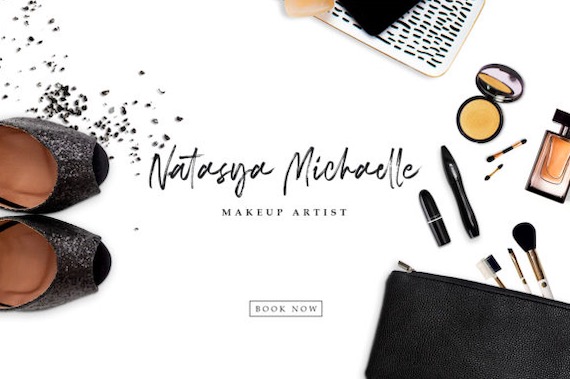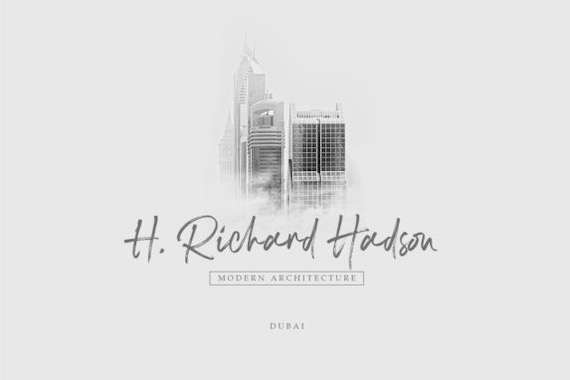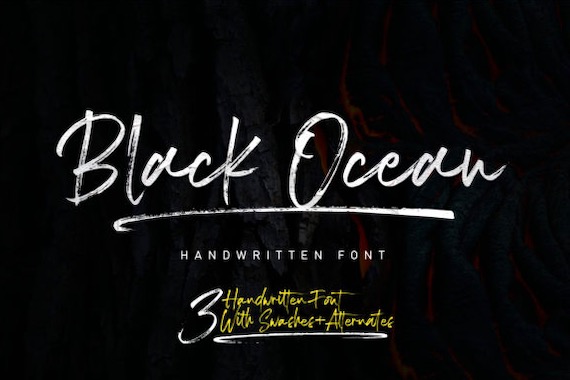
Black Ocean Font is an elegant and powerful handwritten script typeface that has a natural and classy brush style. Along with a cool vibe, this font was created by Fargun Studio, it will make your projects more authentic and beautiful.
Black Ocean Brush Script Font
Font family: Black Ocean Font
Designer Name: Fargun Studio